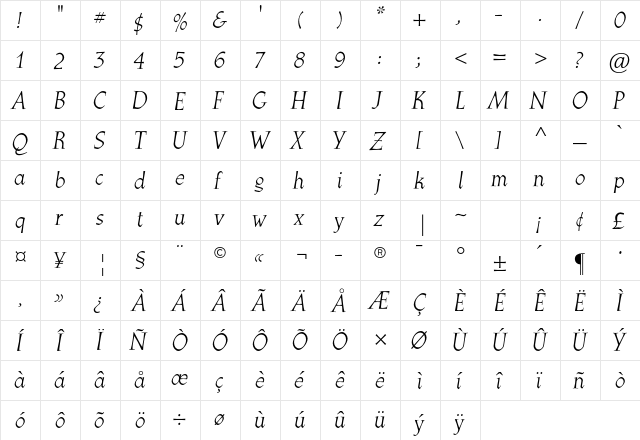
Athenaeum Std Italic
Design Context for Athenaeum Std Typeface
Athenaeum Std offers clean, dependable letterforms without strong stylistic allegiance, making it a practical choice for designers who need flexibility. The dynamic lean of this cut emphasises speed and emphasis in any layout.
Pro Tip: Use Athenaeum Std for emphasis, pull quotes, and subheadings where its slanted energy can add rhythm to the layout.